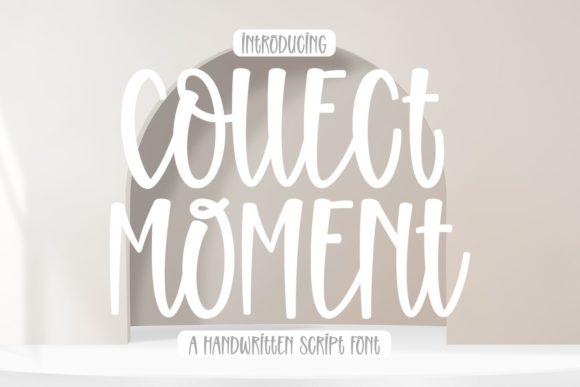
**Collect Moment Font: Capture the Essence of Film with Every Word**
Prepare to be captivated by Collect Moment Font, a script font that will transport your designs to the silver screen and beyond. With its graceful curves and captivating style, Collect Moment embodies the magic of handwritten scripts, igniting a spark of creativity within every project.
Unleash the cinematic charm of Collect Moment in your movie scripts, where each letter dances across the page, carrying the weight of emotion and the allure of untold stories. Let your imagination soar as you craft captivating dialogue, weave intricate narratives, and bring characters to life with the allure of this exquisite font.
But Collect Moment's allure extends far beyond the realm of cinema. Its versatility shines in digital designs, presentations, and even the creation of heartfelt greeting cards. With Collect Moment, your words take on a life of their own, capturing the essence of the moment and leaving an unforgettable impression.
Step into the world of Collect Moment Font, where your words become the stars of the show. Let its sweeping strokes and enchanting curves captivate your audience, leaving them spellbound by the magic of your creations.